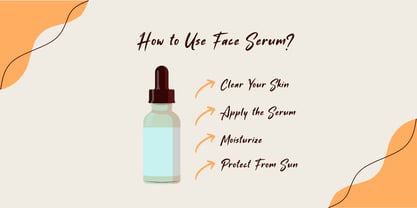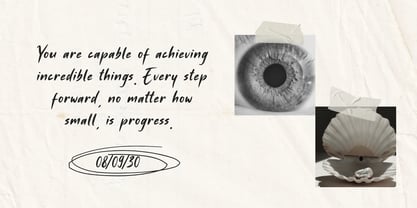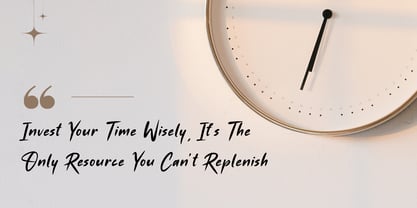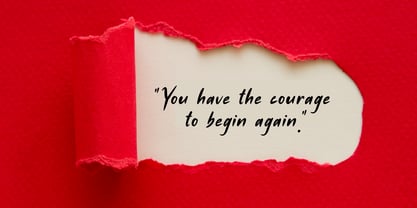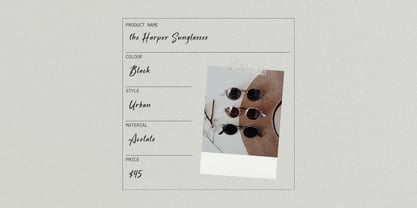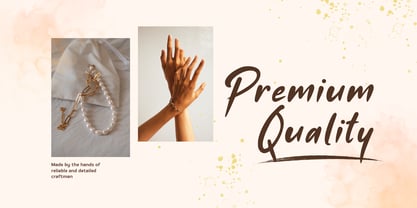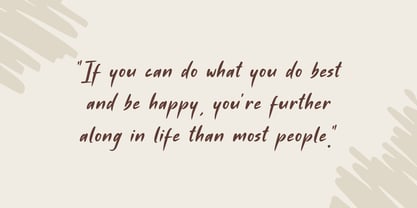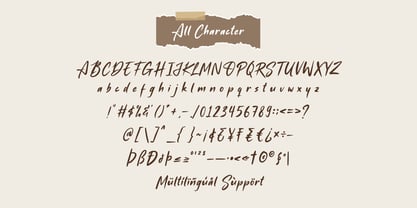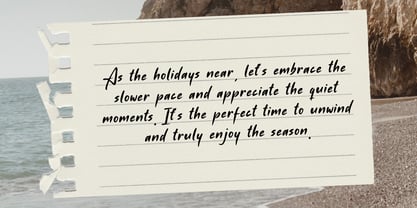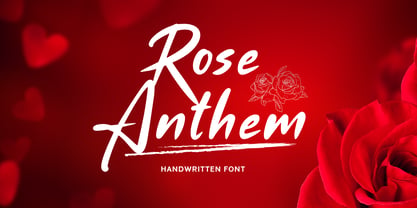
Rose Anthem
by Sronstudio
The Rose Anthem Font Family was designed by Muhamad Yusron Billah and published by Sronstudio. Rose Anthem contains 1 styles. More about this family
Rose Anthem is a charming handwritten font that captures the elegance of personal touch with a graceful, flowing style. Its soft curves and natural strokes make it perfect for anything that needs a warm, heartfelt feel.
- Uppercase & lowercase characters
- Numerals & punctuation
- Multilingual support